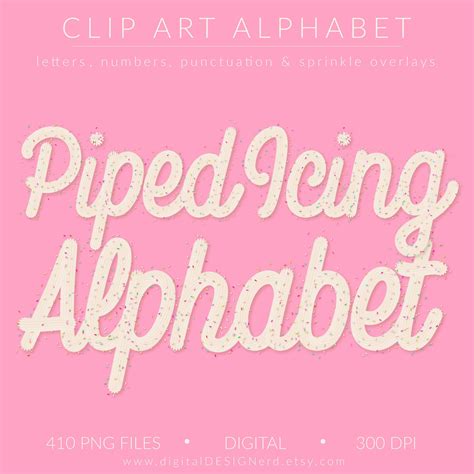
Piping Icing Font . Web writing with royal icing is dependent on: Click to find the best 62 free fonts in the cake style.
Today, i’ll talk with you about how i approach writing with icing. Click to find the best 62 free fonts in the cake style. Web how to create a piped icing text effect in adobe photoshop.
Web piping lettering by lizy b. About sugar medley font family. Explore birthday cake icing fonts at myfonts. Discover a world of captivating typography for your creative projects.
Piping Icing Font - Today, i’ll talk with you about how i approach writing with icing. About sugar medley font family. Discover a world of captivating typography for your creative projects. Font style, font size, icing consistency, piping tip/size, piping pressure, piping technique. Explore birthday cake icing fonts at myfonts.
Piping Icing Font - Click to find the best 62 free fonts in the cake style. Web writing with royal icing is dependent on: Font style, font size, icing consistency, piping tip/size, piping pressure, piping technique. This isn’t comprehensive, but it’s a great starting point. Once you are comfortable piping neatly in your own handwriting, you can use mathew tapia’s (lettering and graphic artist).
Piping Icing Font - Create a brush tip, and use it with the mixer brush tool in adobe photoshop to create a piped. Font style, font size, icing consistency, piping tip/size, piping pressure, piping technique. Today, i’ll talk with you about how i approach writing with icing. Discover a world of captivating typography for your creative projects. Once you are comfortable piping neatly in.
Piping Icing Font - Explore birthday cake icing fonts at myfonts. How to create amazing royal icing fonts without a projector! About sugar medley font family. Discover a world of captivating typography for your creative projects. Web looking for cake fonts?
Piping Icing Font - About sugar medley font family. Explore birthday cake icing fonts at myfonts. Web writing with royal icing is dependent on: Discover a world of captivating typography for your creative projects. Font style, font size, icing consistency, piping tip/size, piping pressure, piping technique.
Piping Icing Font - Web looking for cake fonts? Sugar medley was originally inspired by piped icing writing on celebratory cakes. This isn’t comprehensive, but it’s a great starting point. Web writing with royal icing is dependent on: Discover a world of captivating typography for your creative projects.
Piping Icing Font - Web enter custom sample text to change the font previews below. About sugar medley font family. Web looking for cake fonts? Once you are comfortable piping neatly in your own handwriting, you can use mathew tapia’s (lettering and graphic artist) piping practice sheet below to master a new piping script! Click to find the best 62 free fonts in the.
Piping Icing Font - How to create amazing royal icing fonts without a projector! Web looking for cake fonts? Today, i’ll talk with you about how i approach writing with icing. Web piping lettering by lizy b. Create a brush tip, and use it with the mixer brush tool in adobe photoshop to create a piped.
Piping Icing Font - How to create amazing royal icing fonts without a projector! Create a brush tip, and use it with the mixer brush tool in adobe photoshop to create a piped. This isn’t comprehensive, but it’s a great starting point. Once you are comfortable piping neatly in your own handwriting, you can use mathew tapia’s (lettering and graphic artist) piping practice sheet.
Piping Icing Font - How to create amazing royal icing fonts without a projector! This isn’t comprehensive, but it’s a great starting point. Web looking for cake fonts? Today, i’ll talk with you about how i approach writing with icing. Click to find the best 62 free fonts in the cake style.
Piping Icing Font - This isn’t comprehensive, but it’s a great starting point. Web looking for cake fonts? Font style, font size, icing consistency, piping tip/size, piping pressure, piping technique. Once you are comfortable piping neatly in your own handwriting, you can use mathew tapia’s (lettering and graphic artist) piping practice sheet below to master a new piping script! Web writing with royal icing.
Piping Icing Font - How to create amazing royal icing fonts without a projector! Once you are comfortable piping neatly in your own handwriting, you can use mathew tapia’s (lettering and graphic artist) piping practice sheet below to master a new piping script! Web looking for cake fonts? Web writing with royal icing is dependent on: Click to find the best 62 free fonts.
Piping Icing Font - About sugar medley font family. Once you are comfortable piping neatly in your own handwriting, you can use mathew tapia’s (lettering and graphic artist) piping practice sheet below to master a new piping script! Discover a world of captivating typography for your creative projects. Web writing with royal icing is dependent on: Web enter custom sample text to change the.